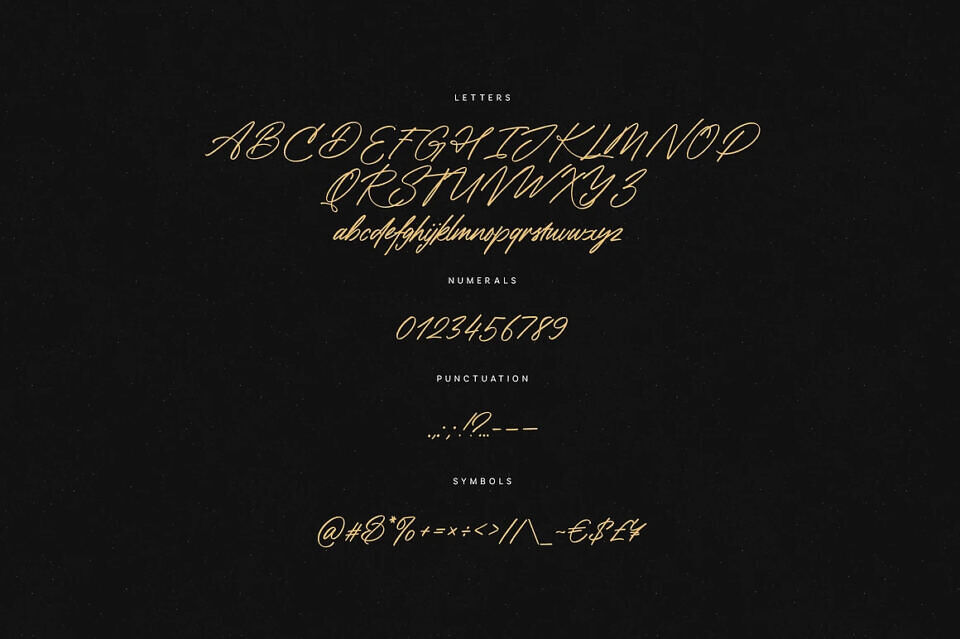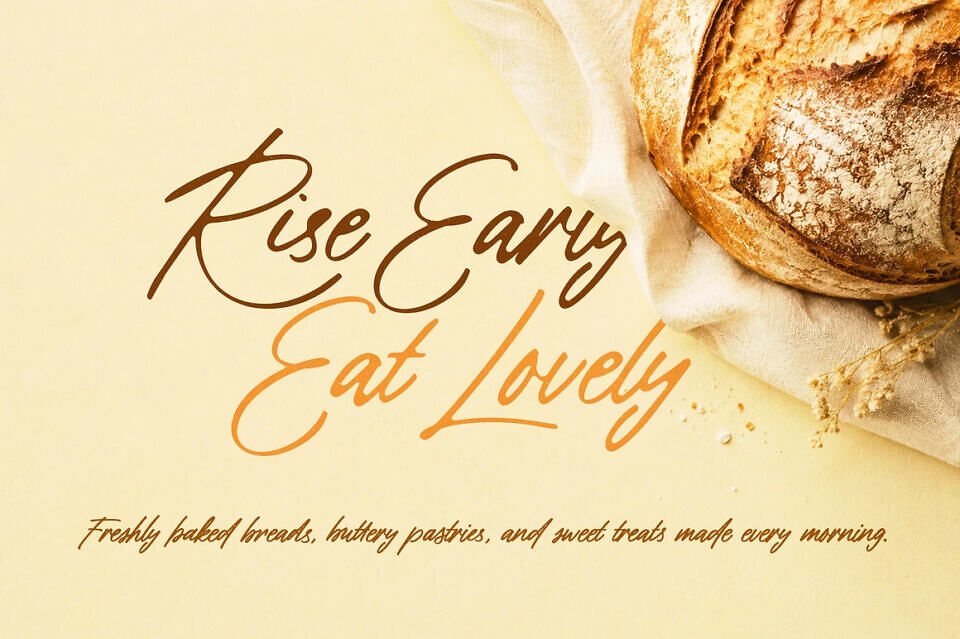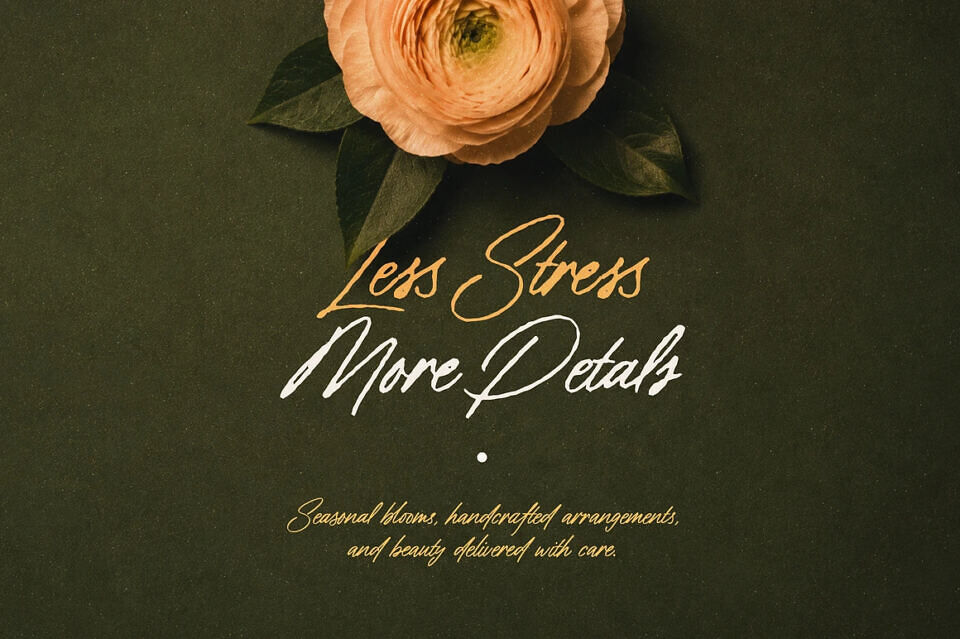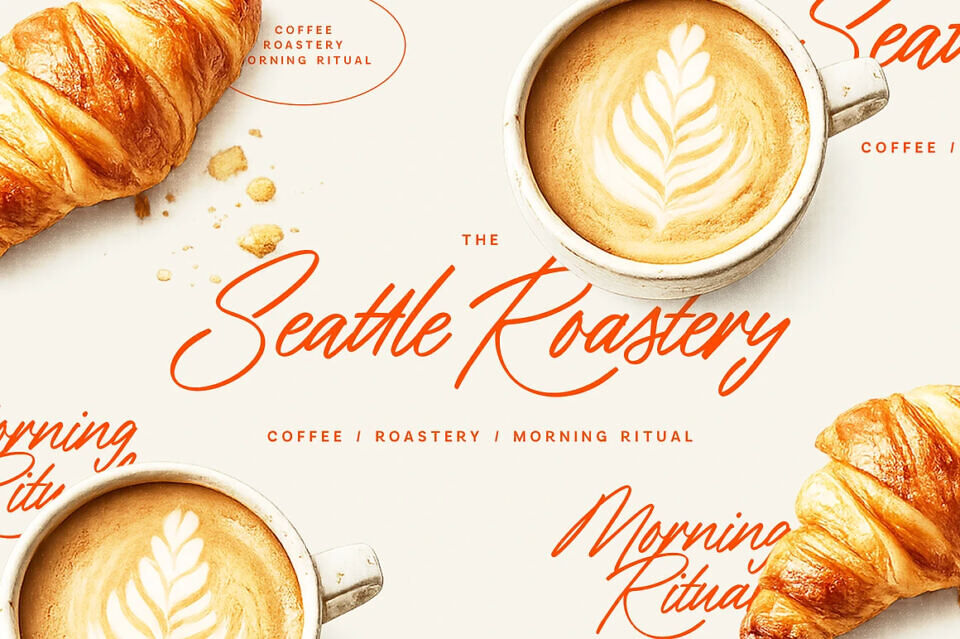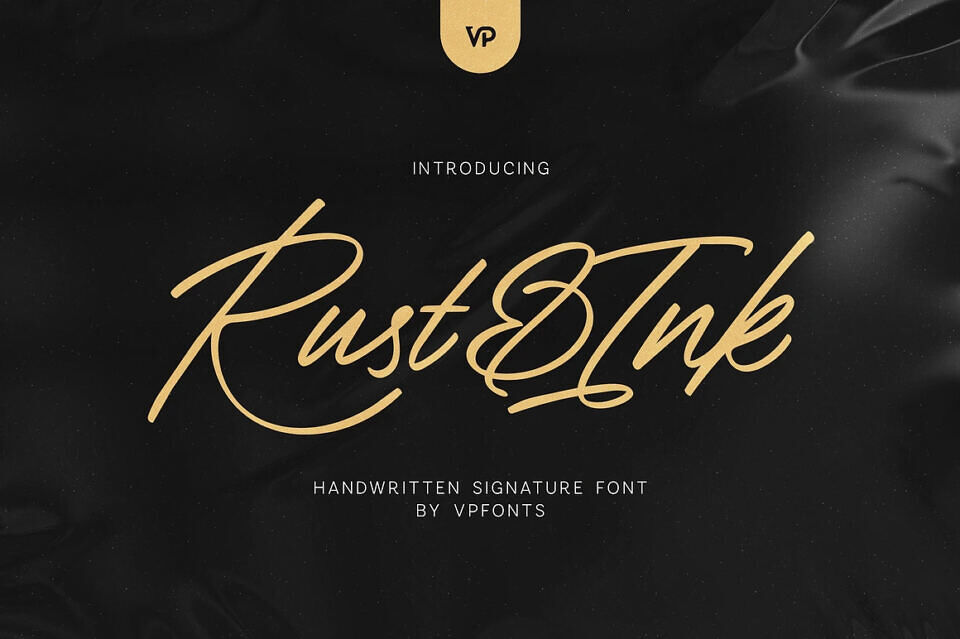
Rust And Ink Font
Rust & Ink is a bold and expressive handwritten signature font created with natural movement, authentic ink texture, and effortless personality. Its energetic strokes, stylish curves, and imperfect details give every design a genuine hand-lettered appearance while remaining clear and versatile.
Available in Regular and Bold styles, Rust Ink makes it easy to create striking contrast across headlines, logos, packaging, and editorial layouts. A collection of carefully designed ligatures helps words connect more naturally, giving names, quotes, and brand messages a distinctive custom-lettered finish.